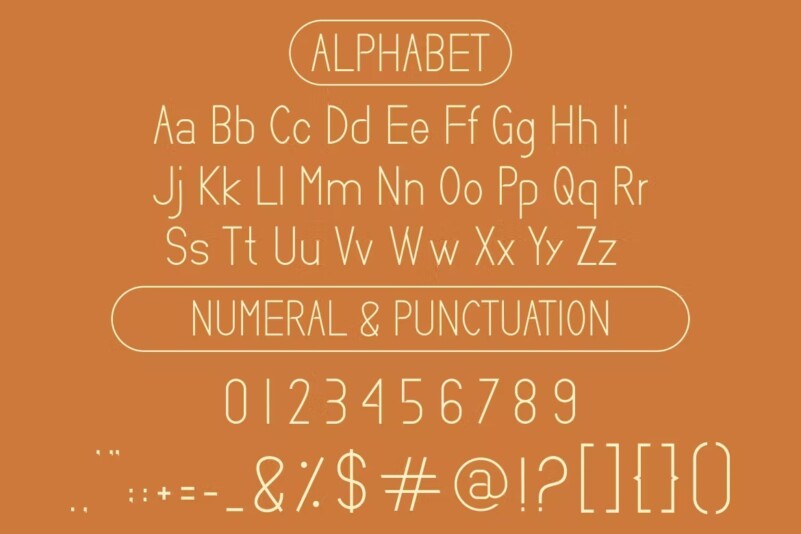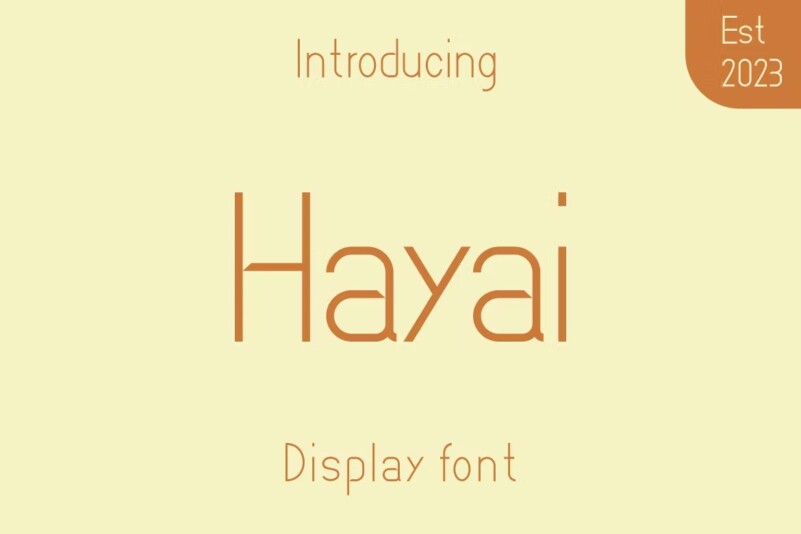
Hayai Font
Hayai Font – Modern Font is a bold and authentic display font. The font is suitable for any branding project like logo, t-shirt printing, and many more. outstanding in a wide range of contexts.